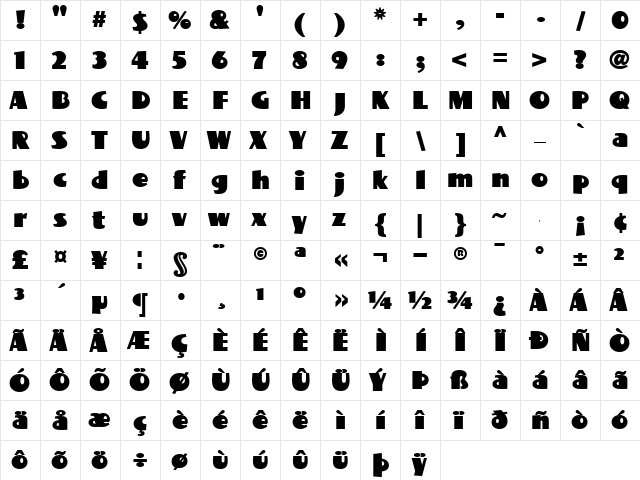
BottleKaps S Regular Regular
Design Context for BottleKaps S Regular Typeface
BottleKaps S Regular takes a measured approach to typography — its balanced proportions and neutral character make it a reliable workhorse for both digital and print work.